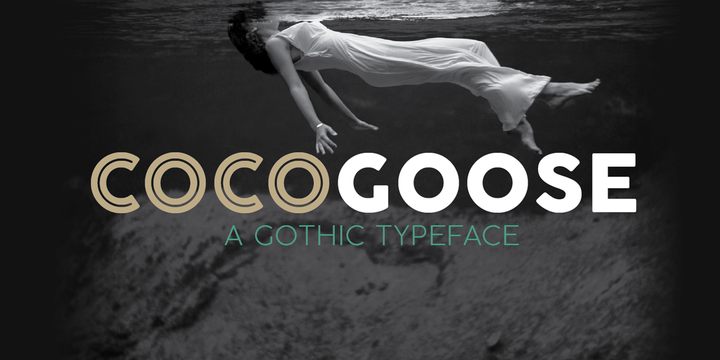
Cocogoose Pro Font Famly
Introducing the new font family. Cocogoose Pro Font Family designed by Zetafonts. Cocogoose is a geometric sans serif typeface designed with straight, monolinear lines and circular or square shapes. Its strong, modernist look has been softened by rounded corners and slight visual corrections that make Cocogoose not only perfect for logos and headings with a vintage feel, but also very readable as a text font, thanks to its generous x-height…